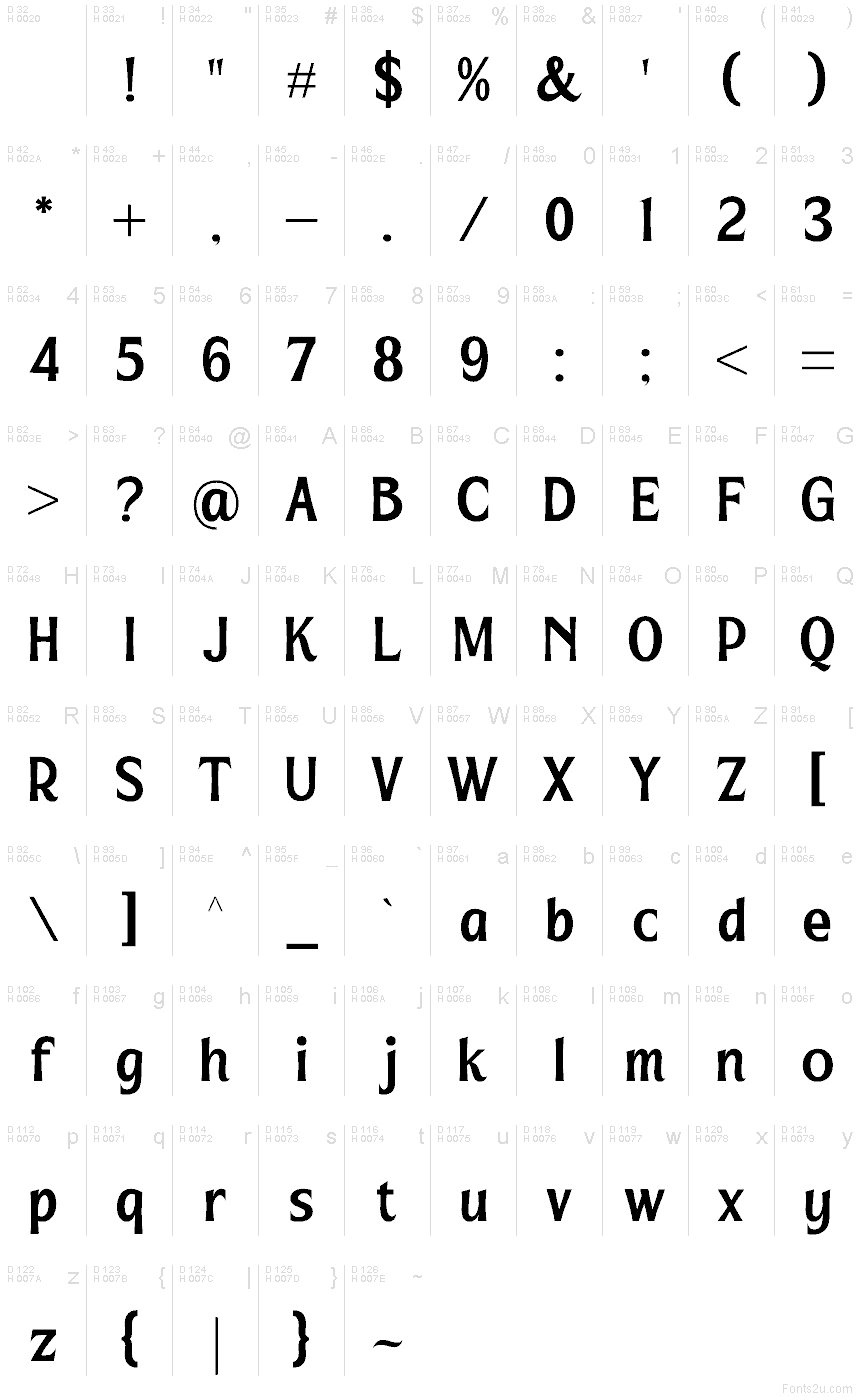
Huntrela
Huntrela font by Storytype Studio is a serif typeface with an organic feel that beautifully combines vintage influence with artistic touch. Its expressive quality comes alive in every character that is presented uniformly and attractively. Balanced and hyper legible, this font holds the potential to appeal to viewers instantly.
A free serif font, Huntrela will work well in poster design, typography quotes, magazine headers, branding projects (logos included), website headings, advertising posters and banners, and various printed products including book covers. Let its rich appearance upgrade your business cards for a lasting first impression or create social media posts that get noticed.